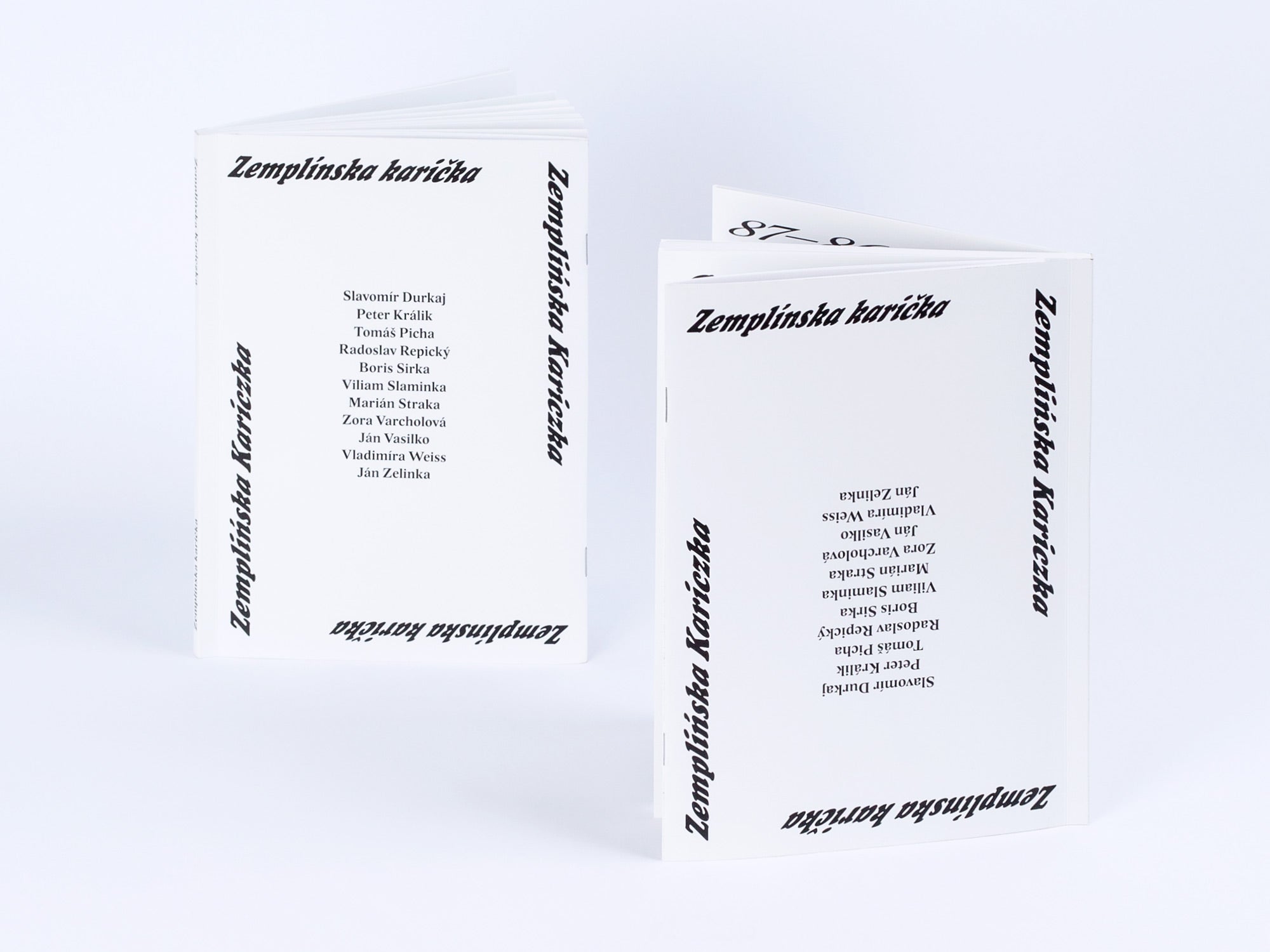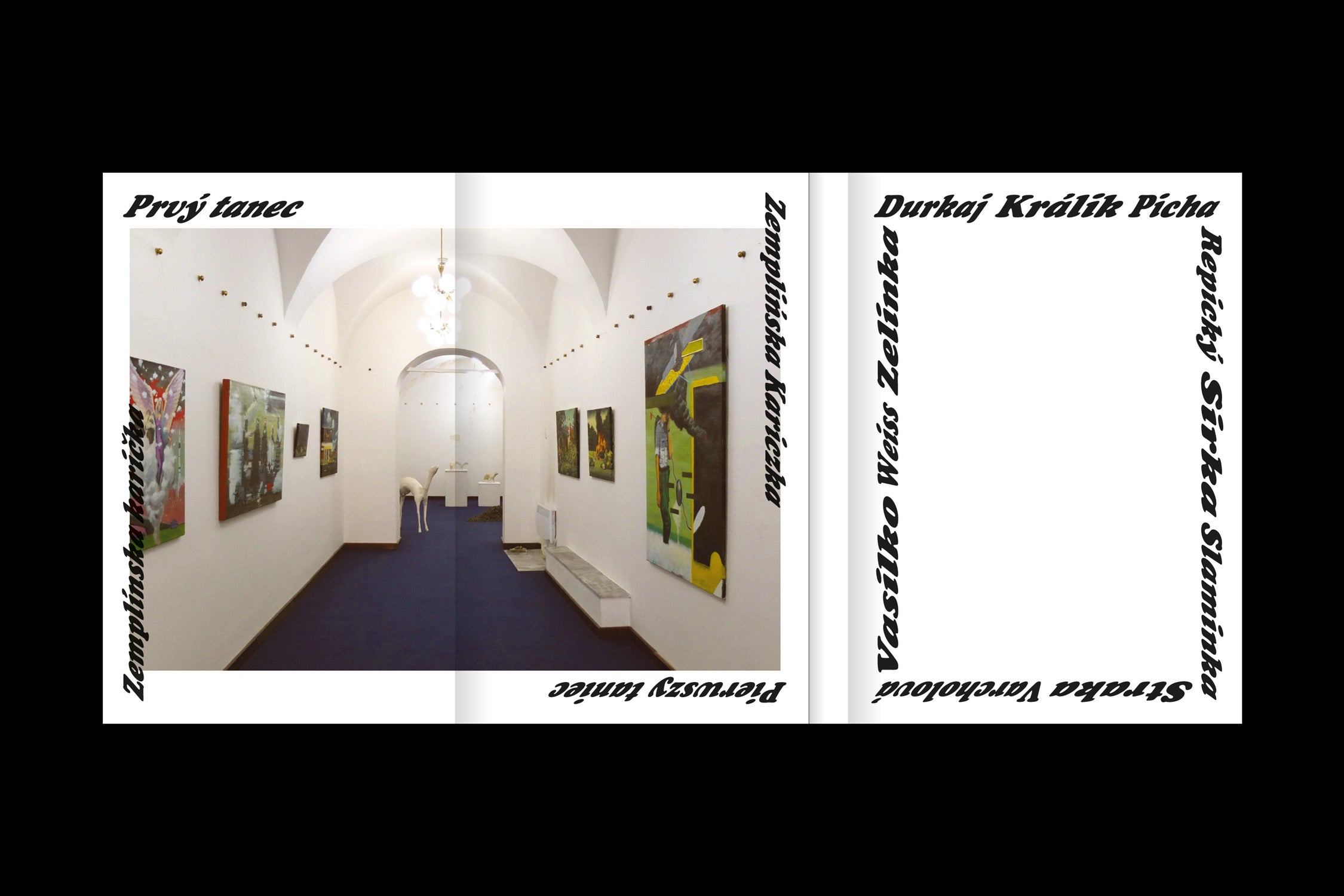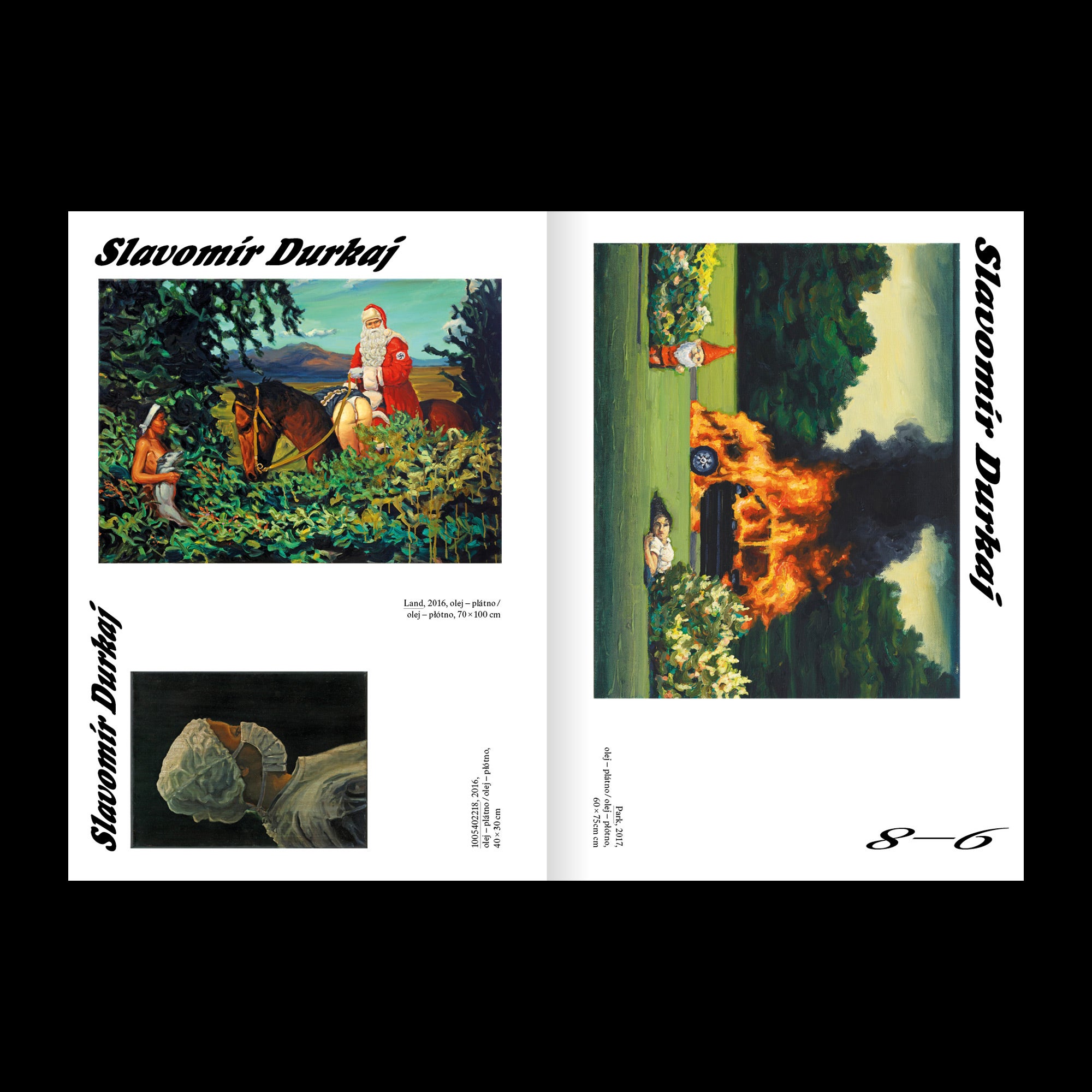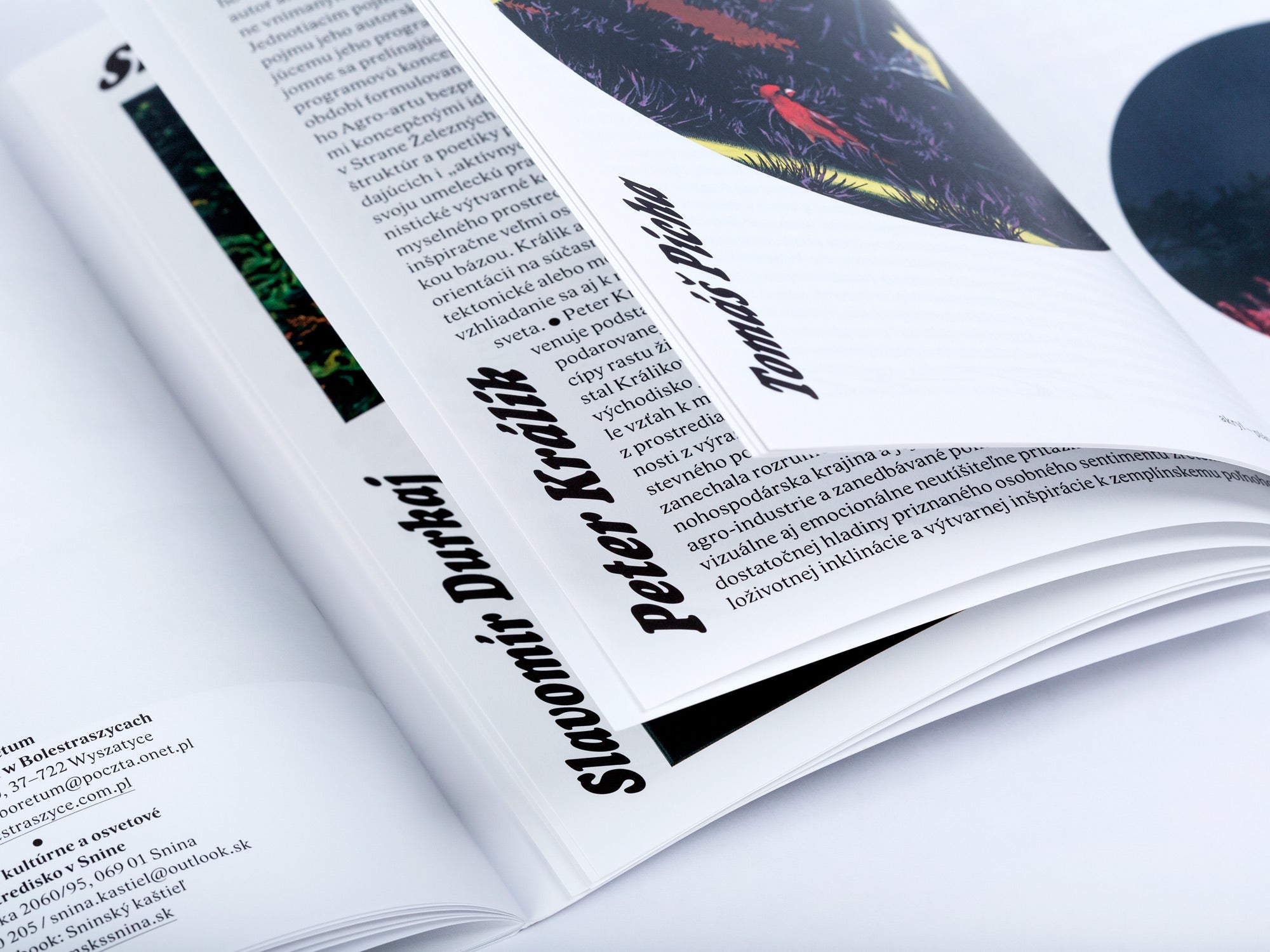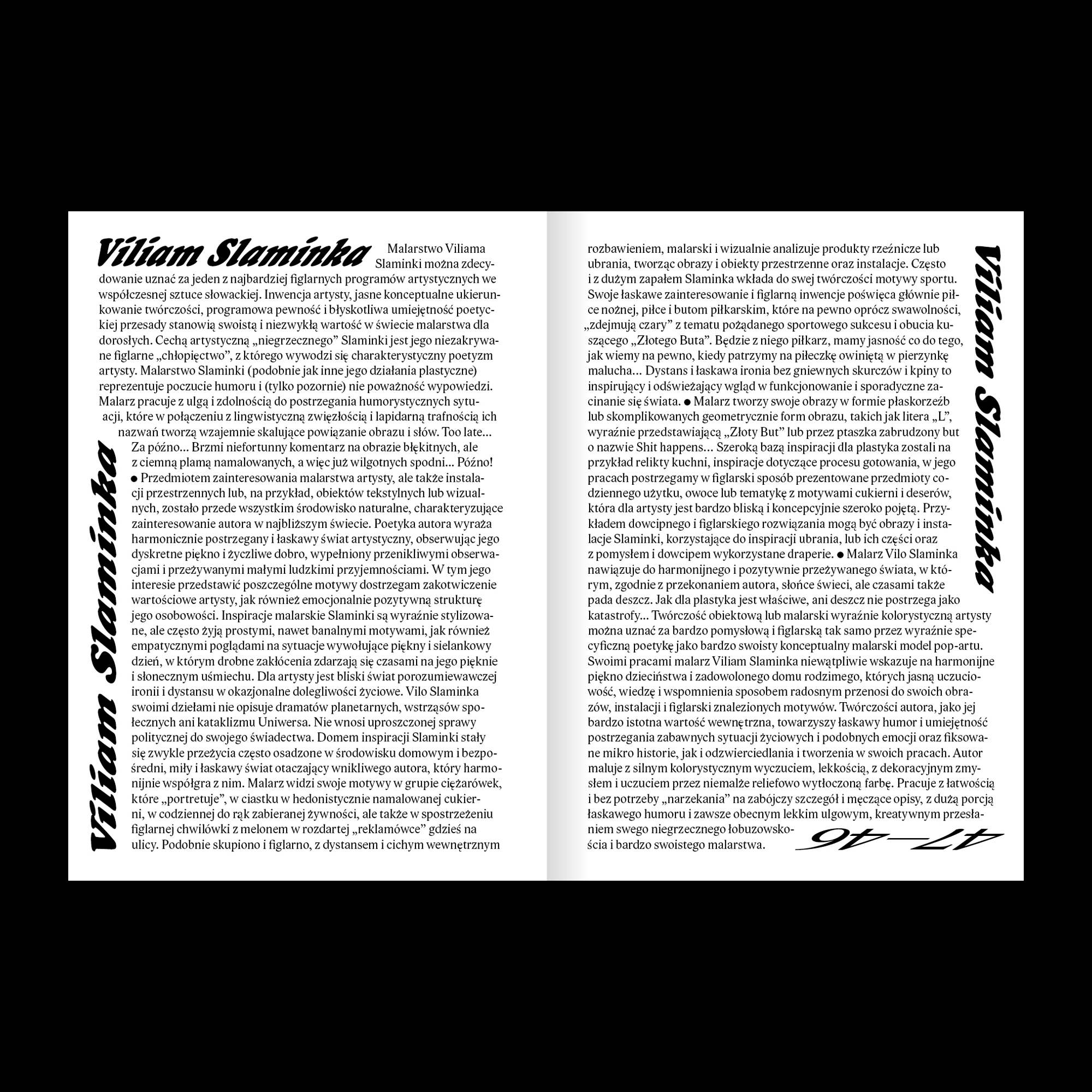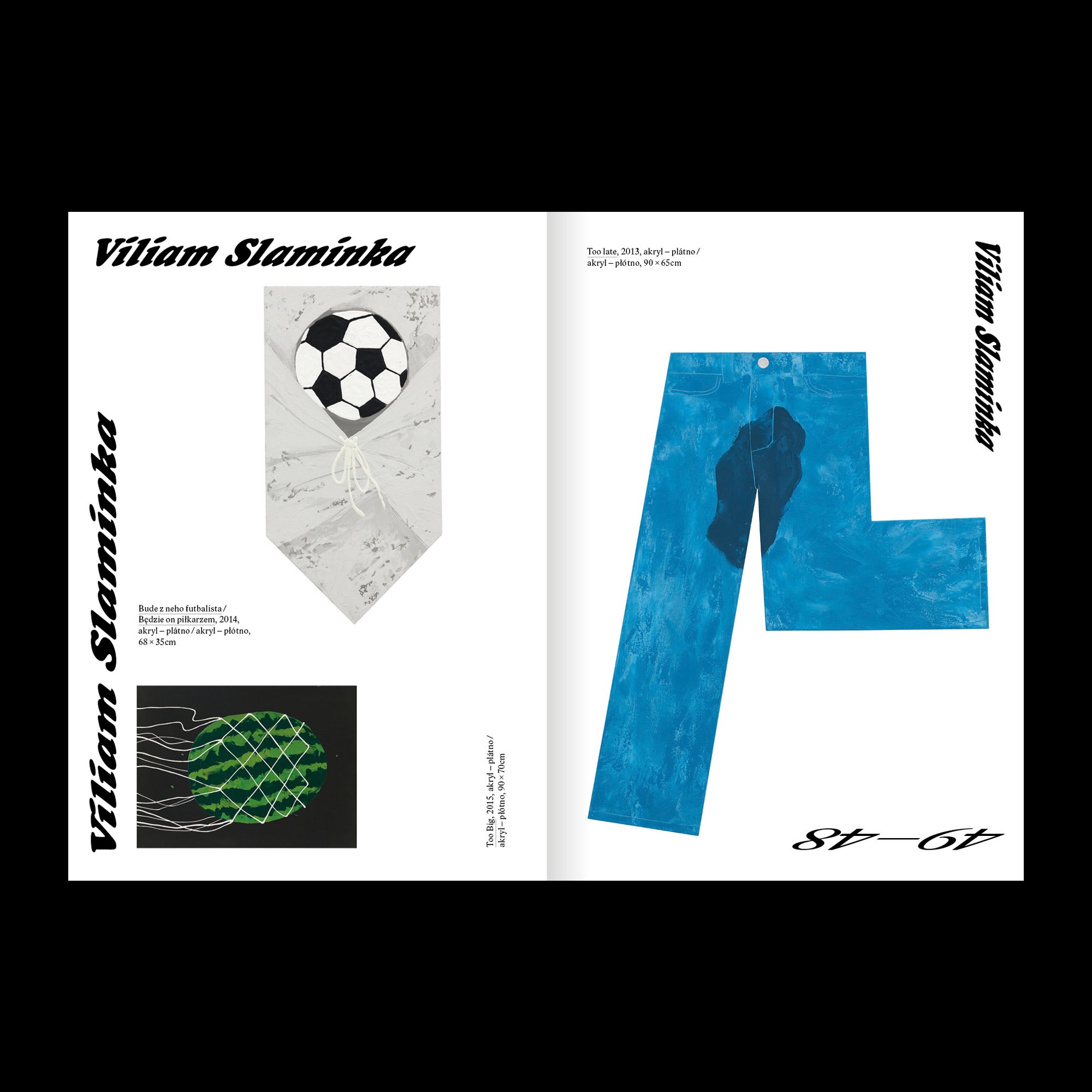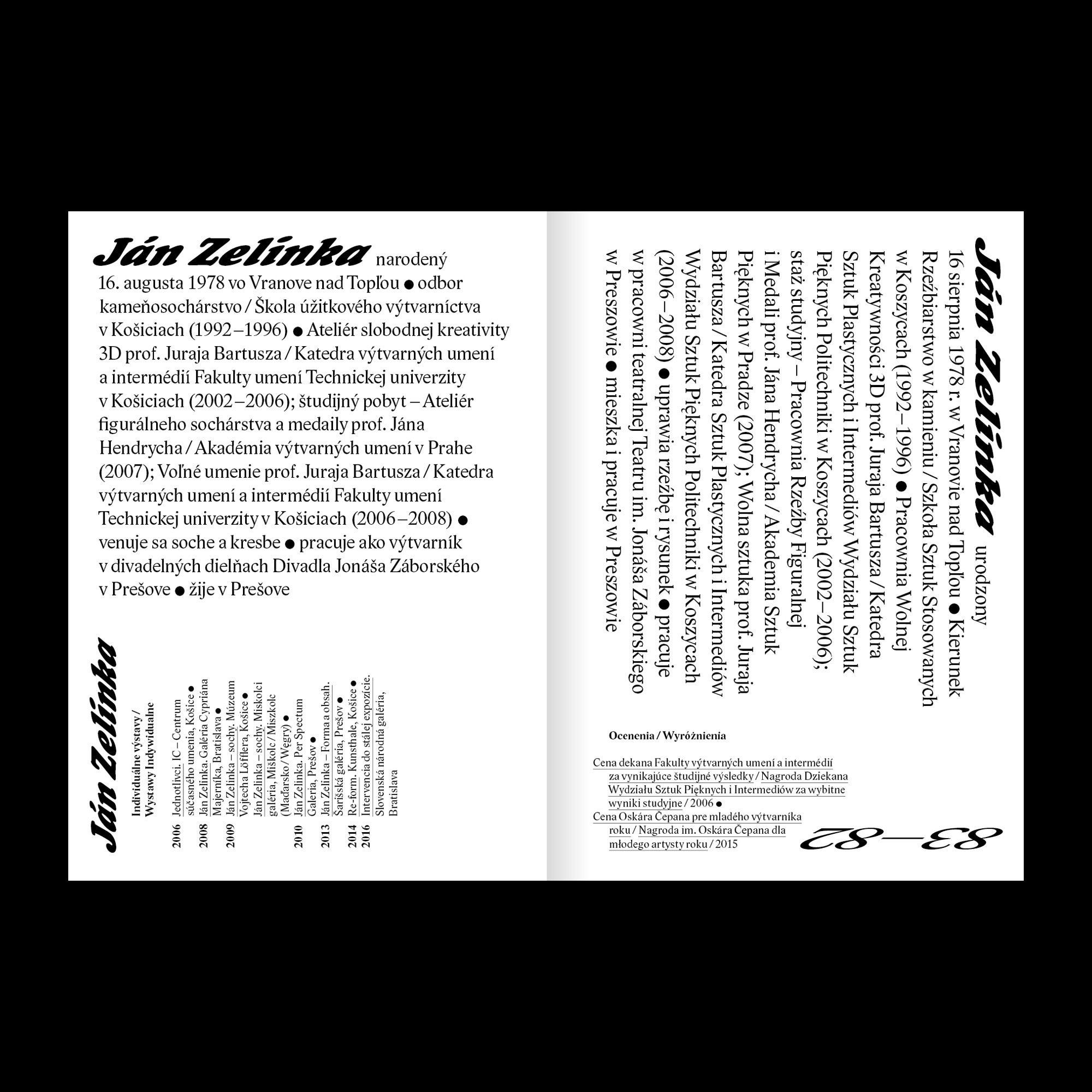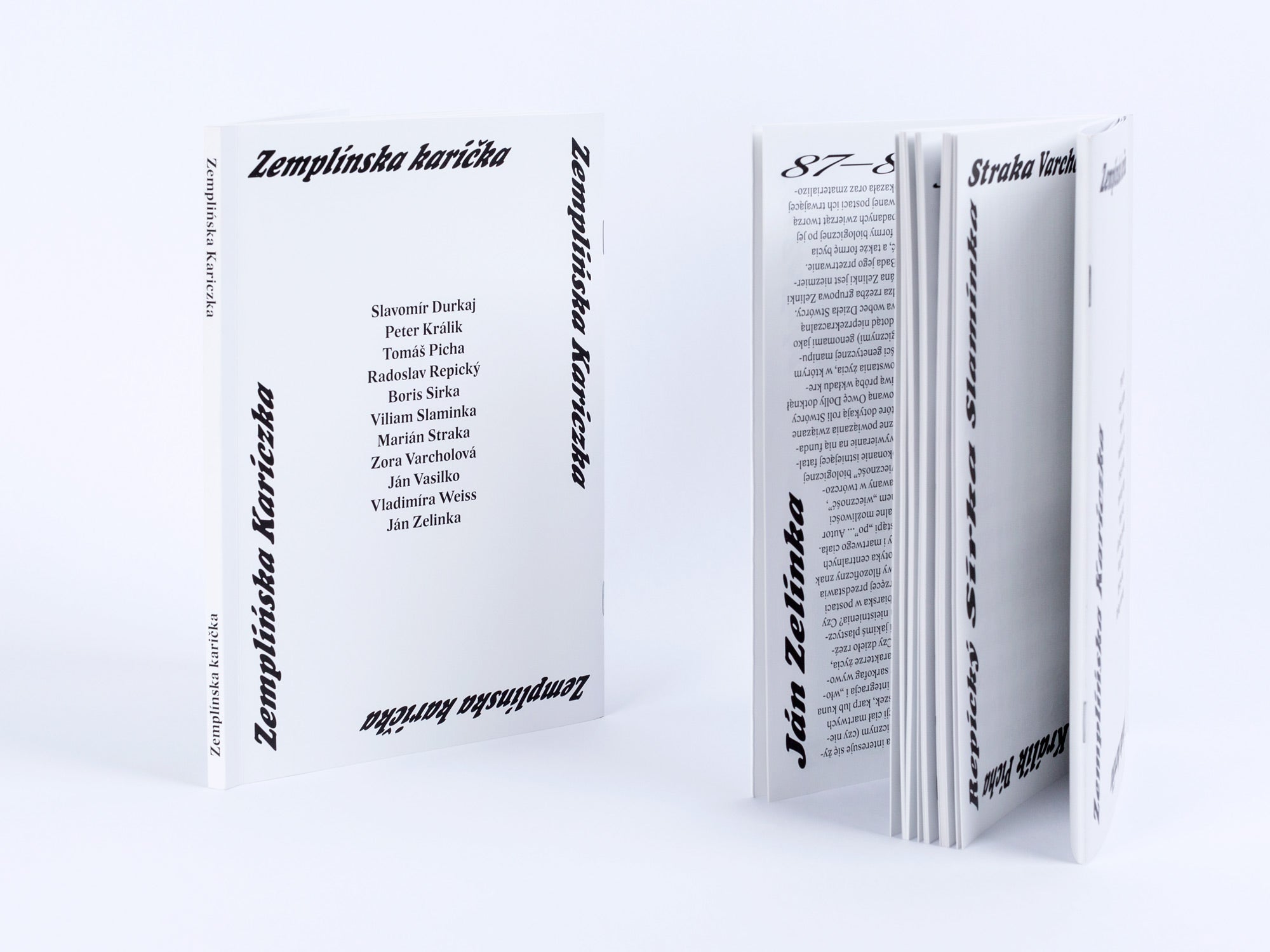
Zemplínska karička
Zemplínska karička — a swirly folk dance from the Zemplín region and also the name of an exhibition project that represents remarkable current artists from Eastern Slovakia. The unconventional design and layout of the publication consists of two separate parts joined together: introductory texts with project information, and then the profiles of the authors. a pulsating, dynamic typography and unconventional layout invite for “dancing” interactions.